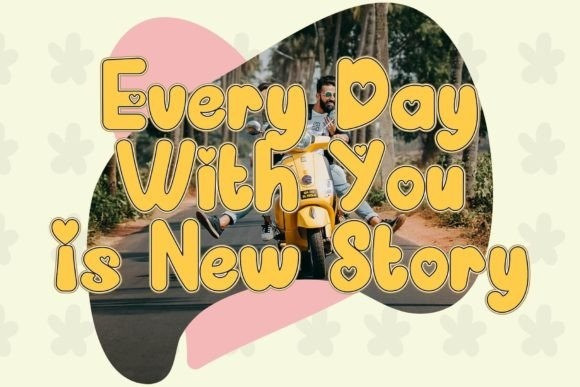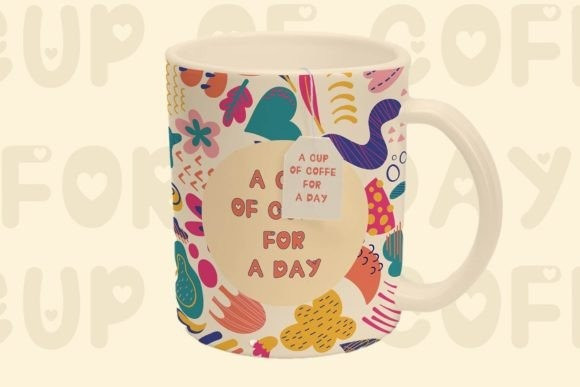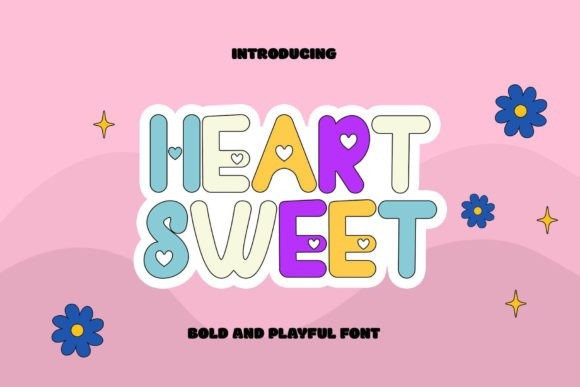
Heart Sweet Font
Heart Sweet Font – the vibrant and whimsical display font that adds a burst of joy to every project! Infused with playful charm and undeniable sweetness, this font is your go-to choice for injecting personality into your designs.
Unlock a world of creativity with “Heart Sweet” as it seamlessly transitions from adorable greeting cards to eye-catching posters, from captivating social media graphics to delightful branding materials. Let your imagination run wild as you explore its versatility across various platforms and applications.
Crafted with love and attention to detail, each letter exudes a unique character, creating a delightful visual experience that captures hearts and leaves a lasting impression. Whether you’re aiming for a lighthearted vibe or aiming to stand out with a touch of whimsy, “Heart Sweet” has got you covered.
Elevate your designs with the irresistible charm of “Heart Sweet” and watch as your projects come to life with an unparalleled sense of fun and enchantment. Don’t just communicate – captivate with “Heart Sweet” today!